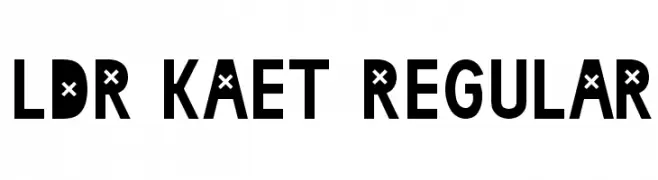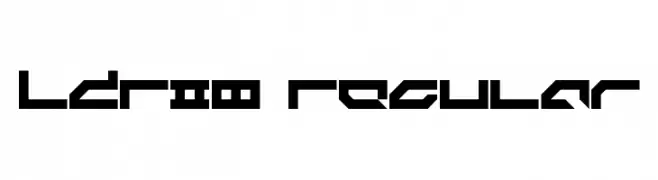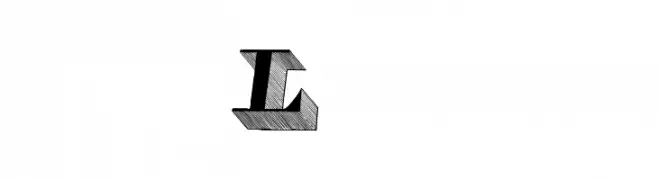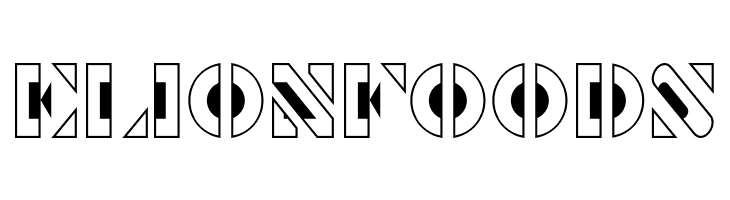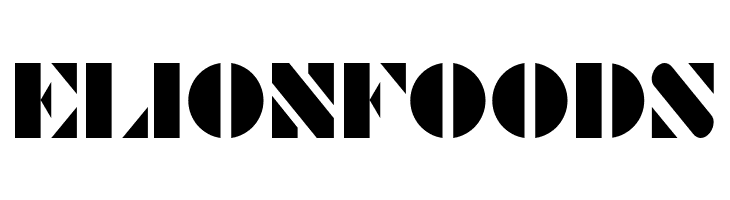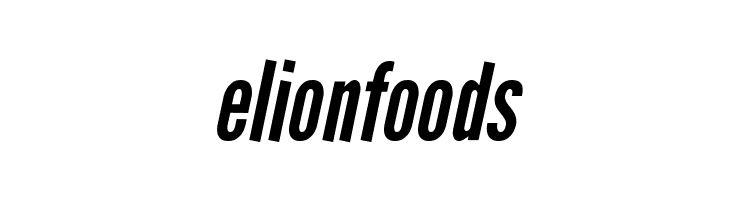
A bold, modern font with unique cross motifs in each character.
A bold, geometric font with a futuristic and tech-inspired design.
A bold, geometric stencil font with sharp angles and clean lines.
A bold, geometric stencil font with high contrast and decorative elements.
A geometric stencil-inspired font with bold lines and sharp angles.
A bold, three-dimensional serif font with pronounced shadows.
A bold, italic, and condensed font with a modern and dynamic style.
A bold, condensed font with a modern and clean aesthetic, perfect for impactful headlines.
A bold, gothic-inspired font with sharp, angular edges and intricate details.